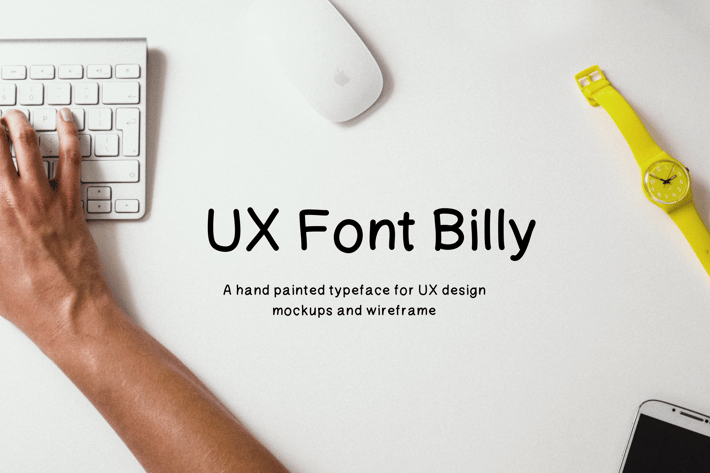
Billy Handwritten UX Typeface + Web Fonts
Billy Handwritten UX Typeface
Billy is a Handwritten Typeface, is a Perfect choice for, ux design, mockups, doodles, comments and more. The pack includes OTF, TTF and Web Fonts (all EOT, TTF, WOFF included).